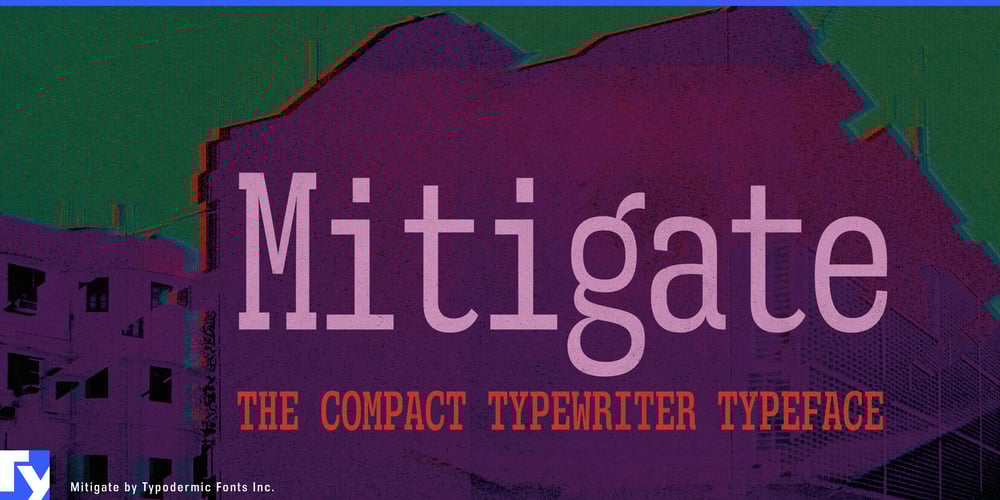
Mitigate
Mitigate font
Mitigate Font Family was designed by Ray Larabie and published by Typodermic. Mitigate contains 8 styles and family package options. In the cutthroat world of journalism where deadlines are as tight as yesterday’s headlines, Mitigate bursts onto the scene like a hot scoop on a slow news day. It’s a typographic time machine, squeezing more words into less space than a tabloid editor with a grudge against white space.Forget those bloated, space-hogging typefaces that lumber across the page like yesterday’s news. Mitigate is the condensed slab-serif that moves at the speed of breaking news. It’s lean, it’s mean, and it’s ready to cram more hard-hitting content into your layouts than you can shake a press pass at. But wait, there’s more! (As if you had time for more in this 24/7 news cycle.) Mitigate comes equipped with two distressed styles that’ll give your text the gritty authenticity of a story ripped straight from a war correspondent’s typewriter. It’s not just a font; it’s a time portal to the golden age of print journalism, when the clack of typewriter keys was the percussion section in the symphony of the newsroom.And for those design mavens running OpenType-aware apps, Mitigate’s got a few aces up its sleeve. Custom ligature combinations that’ll make your text pop faster than a paparazzo’s flashbulb. It’s the typographic equivalent of an exclusive scoop—your designs will have that extra something that sets them apart from the competition. Mitigate speaks more languages than an international press corps. From Afrikaans to Zuni, this typeface ensures your message maintains its punch whether you’re laying out the front page of Le Monde or crafting headlines for the Reykjavík Grapevine.So, designers, editors, and layout artists, listen up! When the clock is ticking, the presses are rolling, and you need to fit that Pulitzer-worthy prose into a postage stamp-sized space, there’s only one typeface to turn to. Mitigate doesn’t just meet deadlines—it beats them into submission.